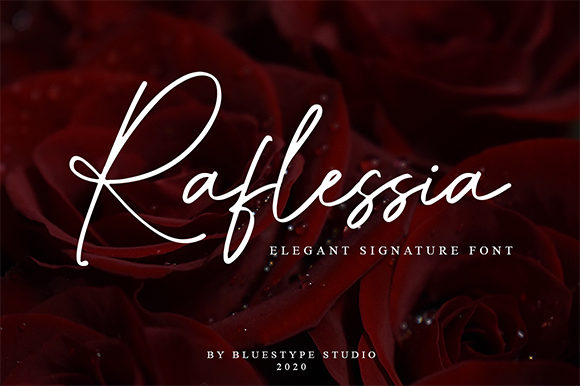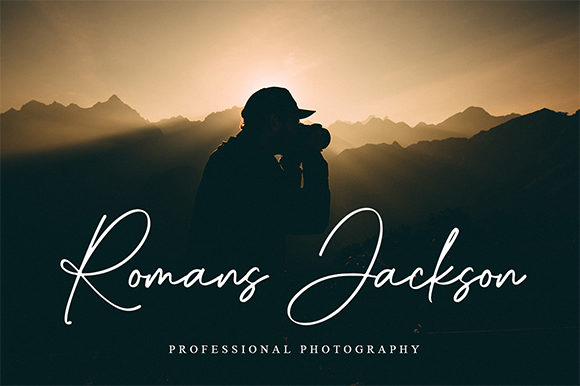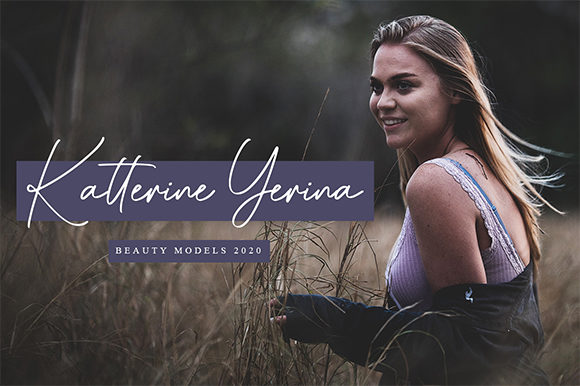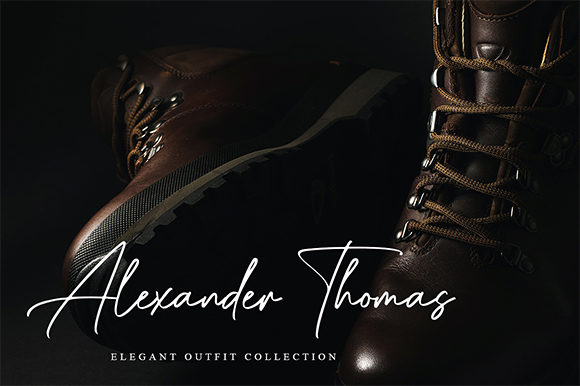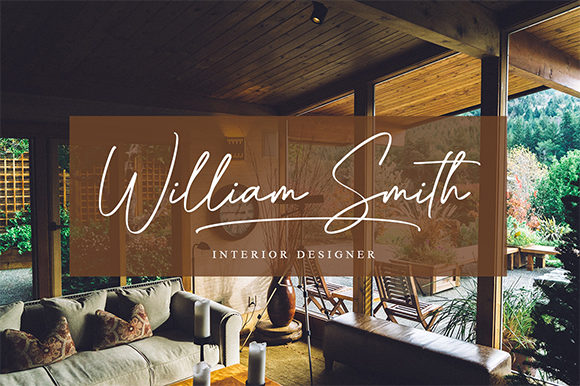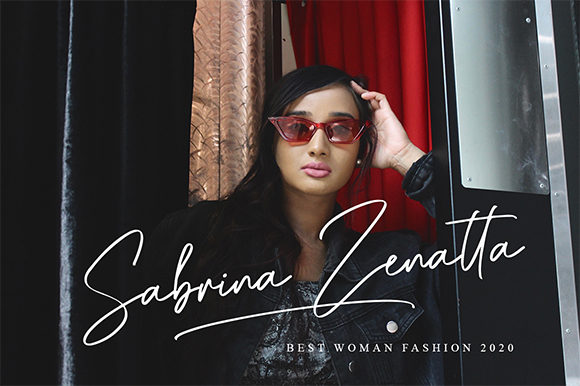
Raflessia Font
About Raflessia Font
Raflessia is a stunning signature font with a cool and luxury twist. Get inspired by its authentic feel and use it to create gorgeous wedding invitations, beautiful stationary art, eye-catching social media posts, and cute greeting cards.